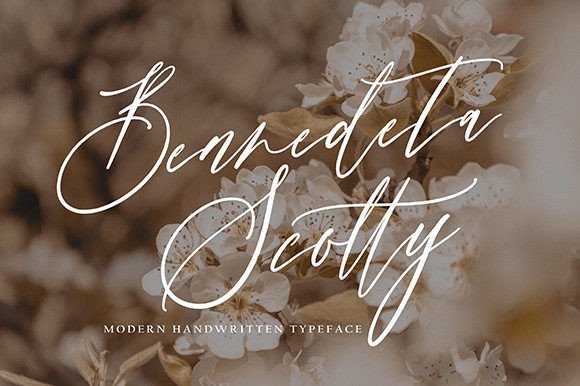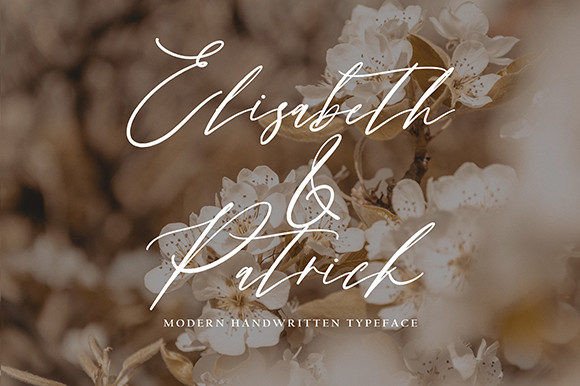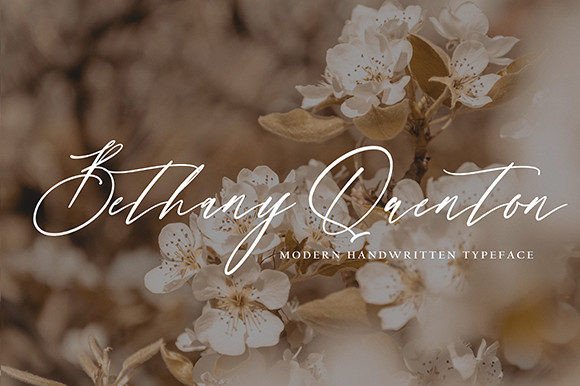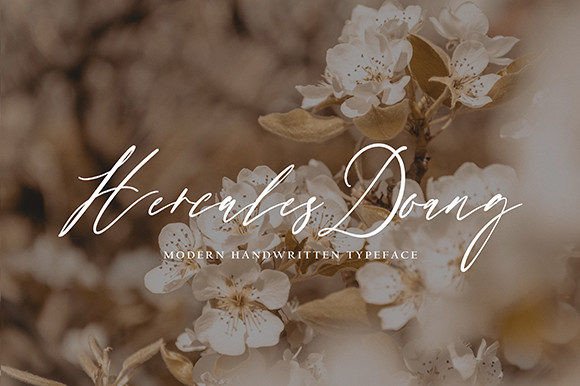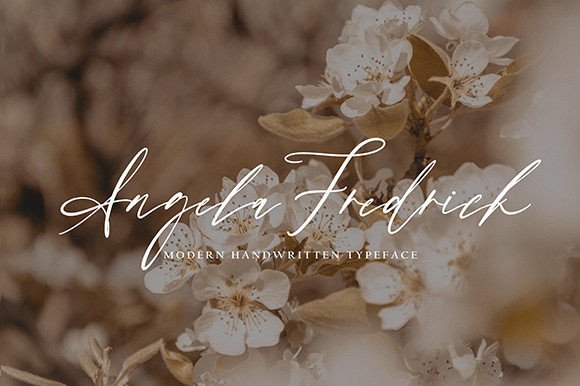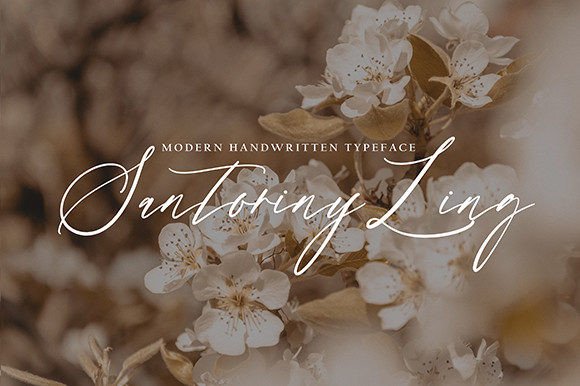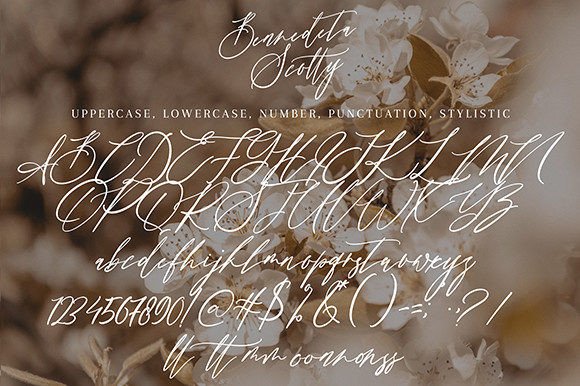
Benedeta Scotty Font
About Benedeta Scotty Font
Benedeta Scotty is an exquisite script font that radiates elegance and charm, making it a perfect choice for a wide range of creative projects. Whether you’re working on quotes, logos, blog headers, posters, branding materials, letters, invitations, stationery, and more, Benedeta Scotty stands ready to enhance your designs.
This font’s beauty lies in its ability to convey a sense of sophistication and refinement to your work. Its graceful and stylish letterforms add a touch of timeless elegance, making it ideal for projects where you want to create a sense of class and beauty.
Benedeta Scotty’s versatility knows no bounds, allowing it to seamlessly adapt to different design themes and concepts. It is a font that can elevate your creative work and help you convey your message with grace and style.
In summary, Benedeta Scotty is not just a font; it’s a creative asset that brings a touch of elegance and charm to your design endeavors. Its exquisite script style, combined with its adaptability, makes it a valuable addition to your font collection. Embrace Benedeta Scotty and watch as it elevates your creative projects with its timeless and sophisticated design.